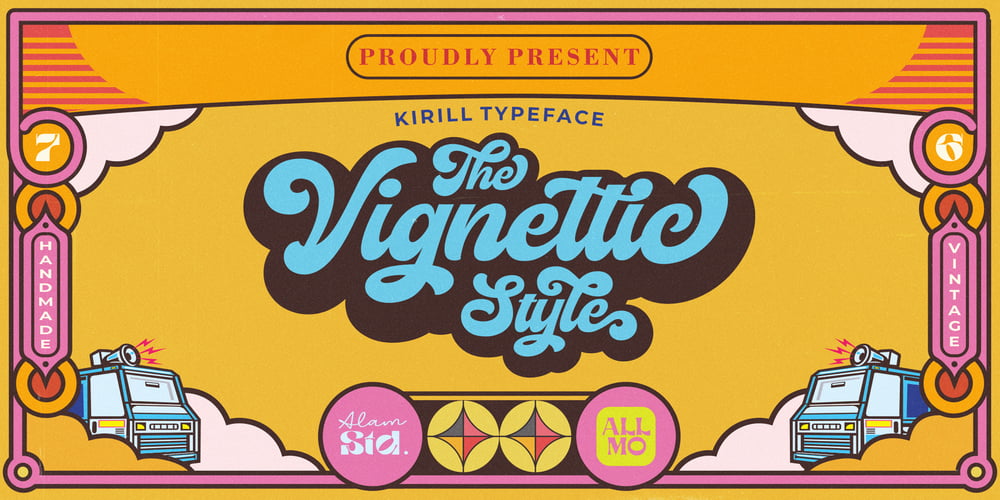
Vignettic
Vignettic font
Vignettic Font Family was designed by Muhammad Nur Alamsyah and published by Allmo Studio. Vignettic contains 2 styles and family package options. Vignettic font comes with a retro, modern, and vintage touch.Inspired by the dynamic culture, sign, and badges design.Vignettic Script comes with uppercase, lowercase, numerals, punctuations and so many variations on each character include OpenType alternates.This font is great for your creative project such as logos, posters. invitations cards, packaging, badges, logotype, apparel design, and labels.But don’t let us restrain your imagination of course. Work well on both vintage and modern designs. You can see our design implementation on preview images to check the resulting sample.Vignettic Font looks Perfect for use in anything from Branding, Web, Packaging, Etc.